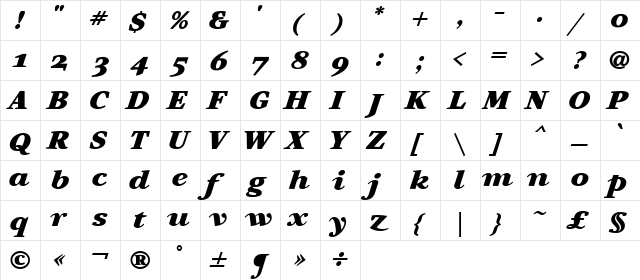
Artemius SN Black Italic
| Foundry | Letterhead studio especially for ArtLebedev Group. Created by Yuri Gordon |
Design Context for Artemius SN Black Typeface
Artemius SN Black offers clean, dependable letterforms without strong stylistic allegiance, making it a practical choice for designers who need flexibility. Its italic angle brings a sense of urgency and motion to the letterforms.
Pro Tip: Use Artemius SN Black for emphasis, pull quotes, and subheadings where its slanted energy can add rhythm to the layout.